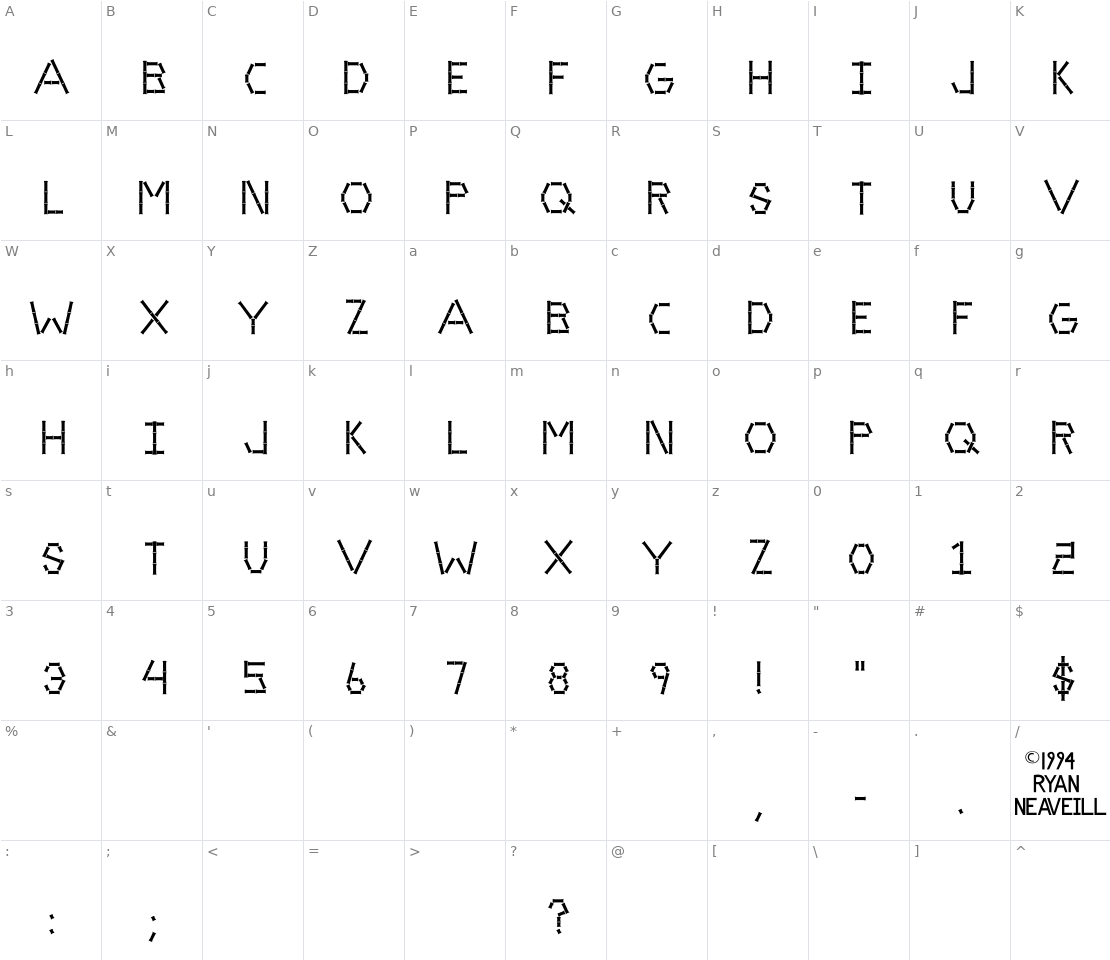
Bamboo
by Ryan Neaveill
Bamboo is a decorative display face by Ryan Neaveill where each letterform is constructed from segmented, stalk-like strokes that genuinely look like pieces of bamboo fitted together. The geometric construction keeps things readable despite the heavy theming, and the uppercase-only character set reinforces its role as a headline font. Best for tiki bars, nature-themed signage, tropical packaging, or any project where you want the lettering itself to carry the theme.